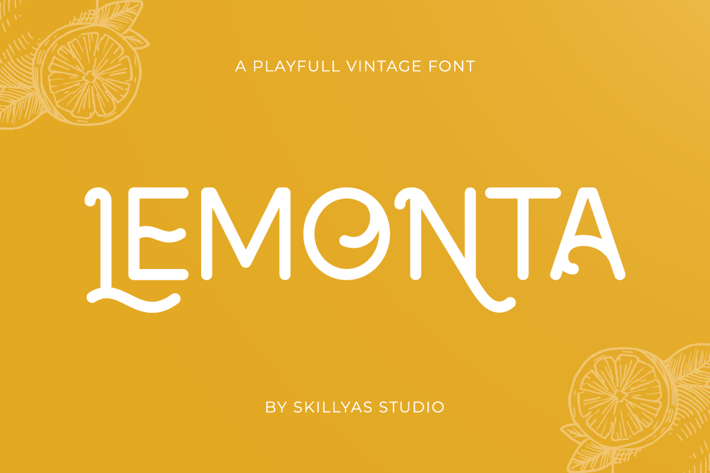
Lemonta a Playfull Font
Lemonta is a Typeface with a Fun Vintage Look that feels like all the good memories from the past are flooding over you.
This can be used for Adventure Content, Instagram feeds, Holiday Banners, Food Content, or a Logo.